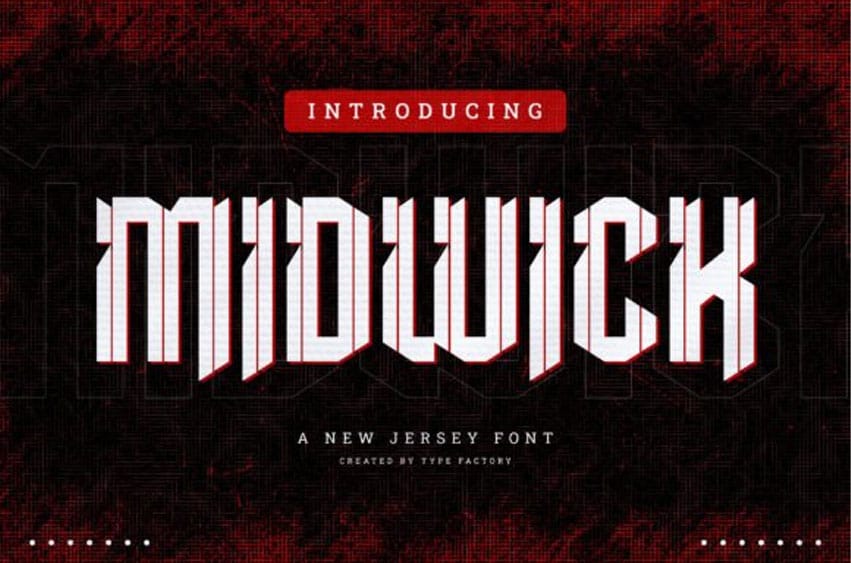
Midwick Font is a robust and dynamic font that mirrors the vivacious spirit of New Jersey. Its powerful lines coupled with its whimsical personality make Midwick a perfect blend of edginess and modern brilliance. This font is an invaluable asset for crafting arresting sports logos, trendy streetwear branding, impactful posters, as well as influential signage.
Fueled by the spirited essence and vivacious culture of New Jersey, it effortlessly infuses your designs with authenticity and a bold disposition. Suitable for both print and digital mediums, Midwick propels any project to prominence, rendering it memorable and fueled with an electrifying energy.